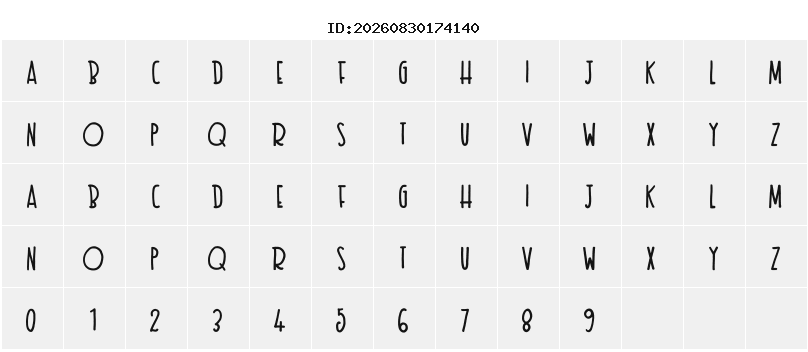
Texas Toast Preview
• Font Name: Texas Toast
• Full Font Name: Texas Toast
• Designer: MakeMediaCo
• Description: Sandbar is a font by PYRS Fontlab Ltd. / Made with FontLab, designed by MakeMediaCo in 2016.
About Texas Toast.ttf
Texas Toast.ttf is a modern, elegant sans-serif font designed for ultimate readability and visual harmony. Perfect for branding, headlines, web design, and print materials.